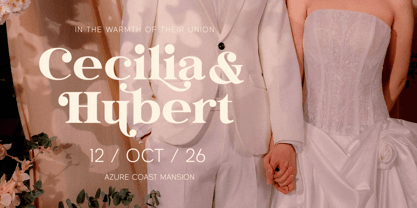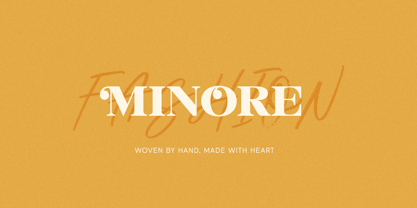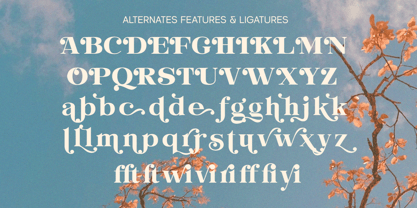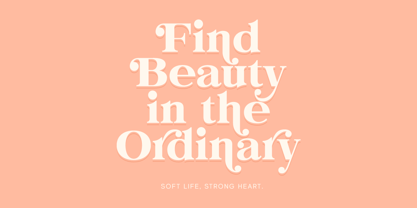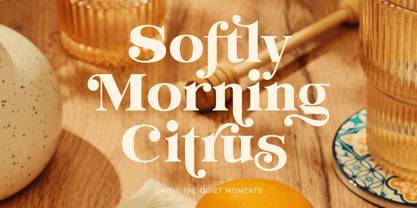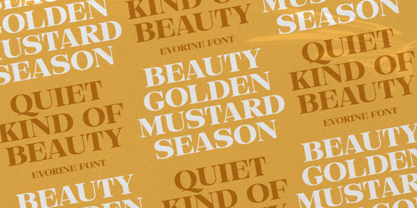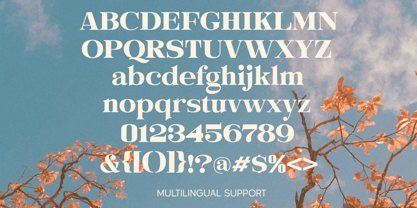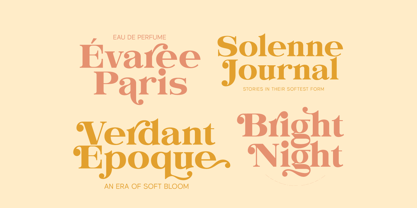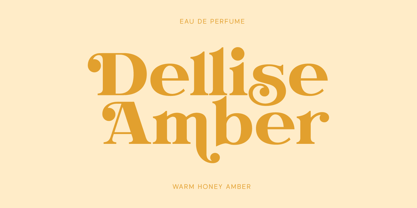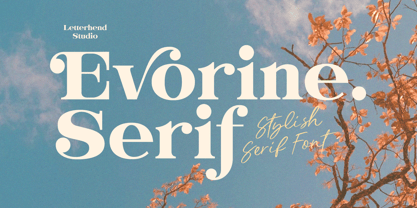
Evorine
The Evorine Font Family was designed by Hendry Juanda and published by Letterhend. Evorine contains 1 styles. More about this family
Evorine Serif is a dreamy little statement font with soft curves, bold elegance, and that effortlessly pretty look that feels like golden hour in typography form. With its high-contrast serif shapes and playful vintage charm, Evórine Serif brings a stylish mix of classy and cute — perfect for fashion branding, café menus, wedding invites, beauty packaging, editorial layouts, and aesthetic social posts.
Features :
• Uppercase & lowercase
• Numbers and punctuation
• Alternates & Ligatures
• Multilingual Support